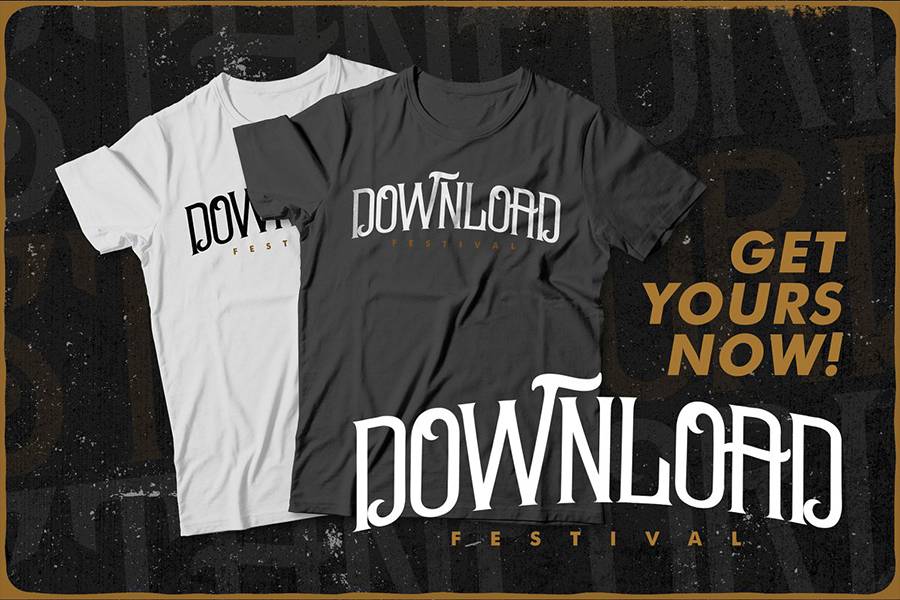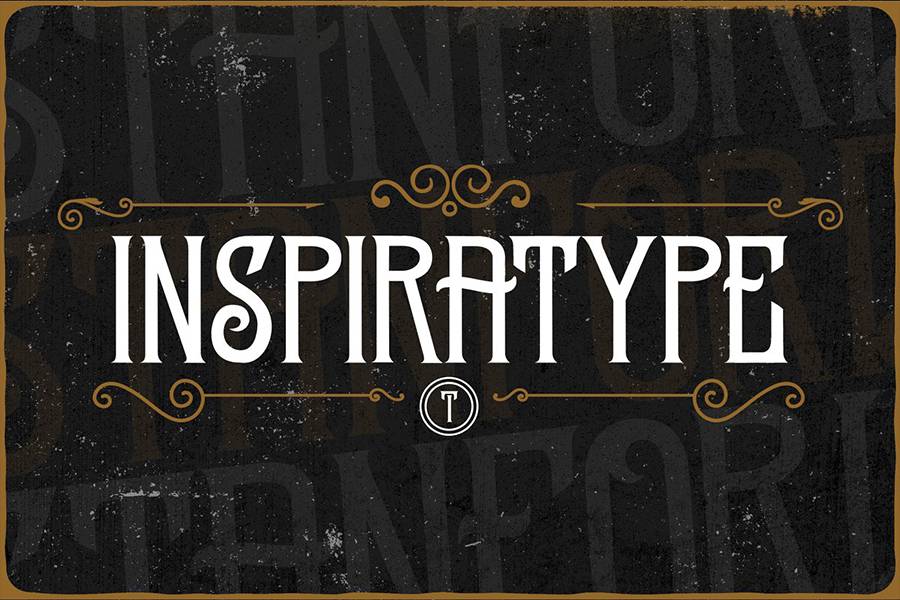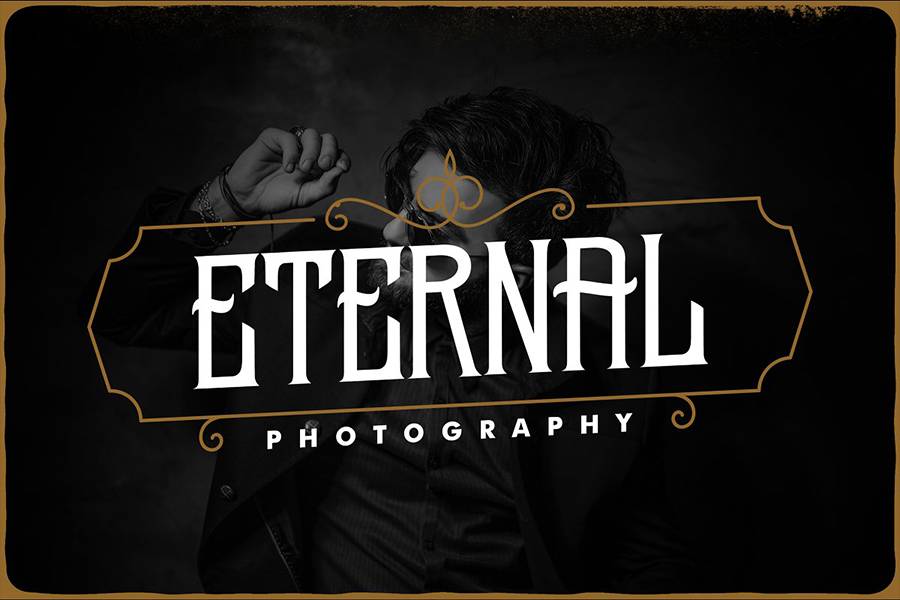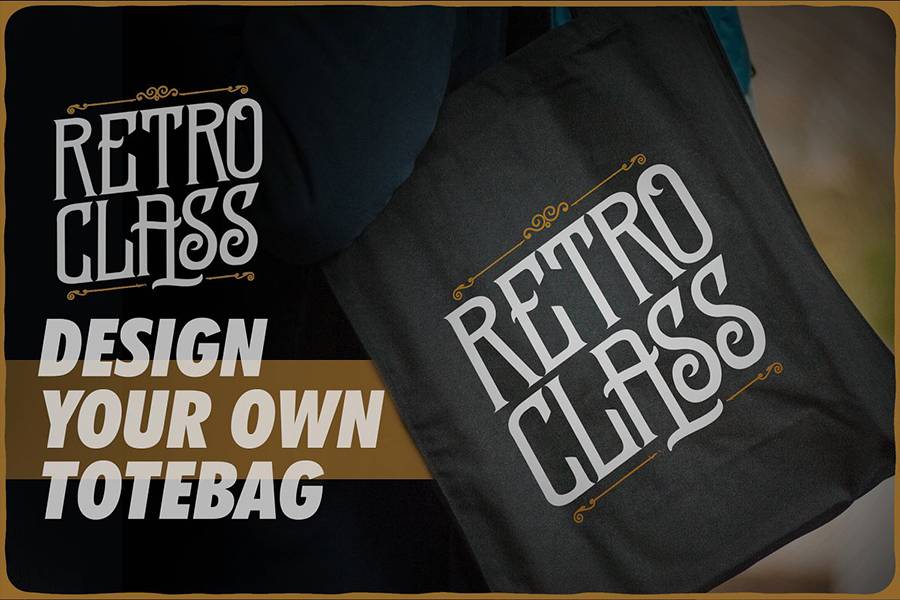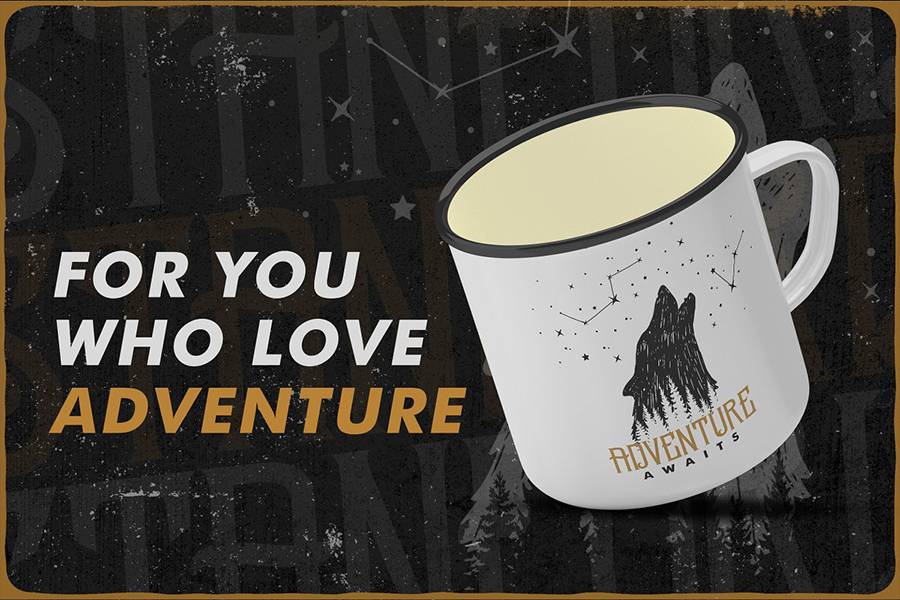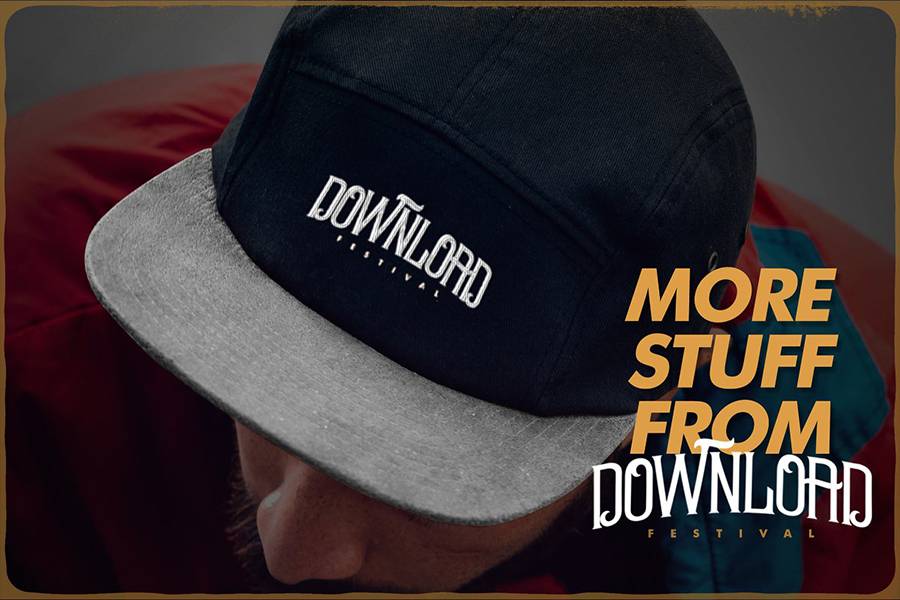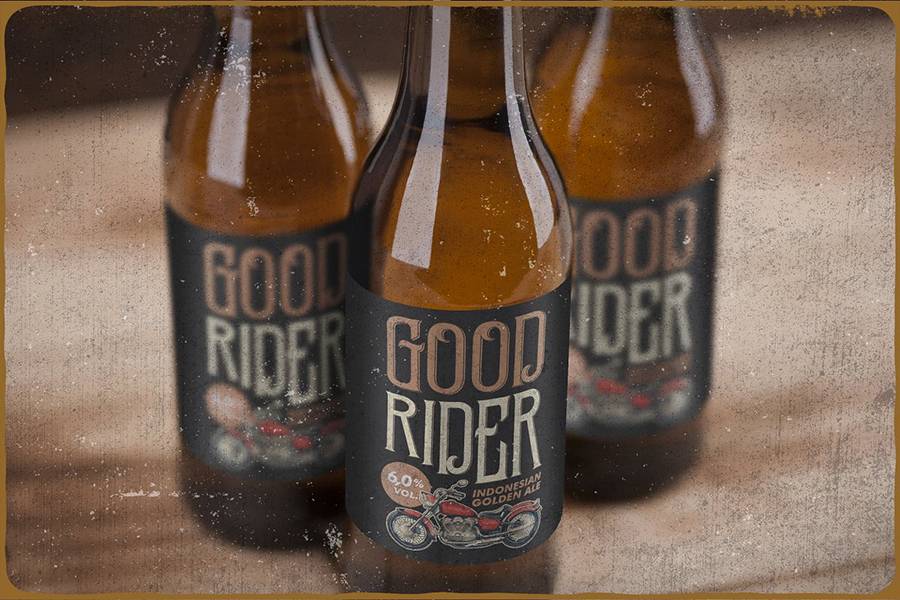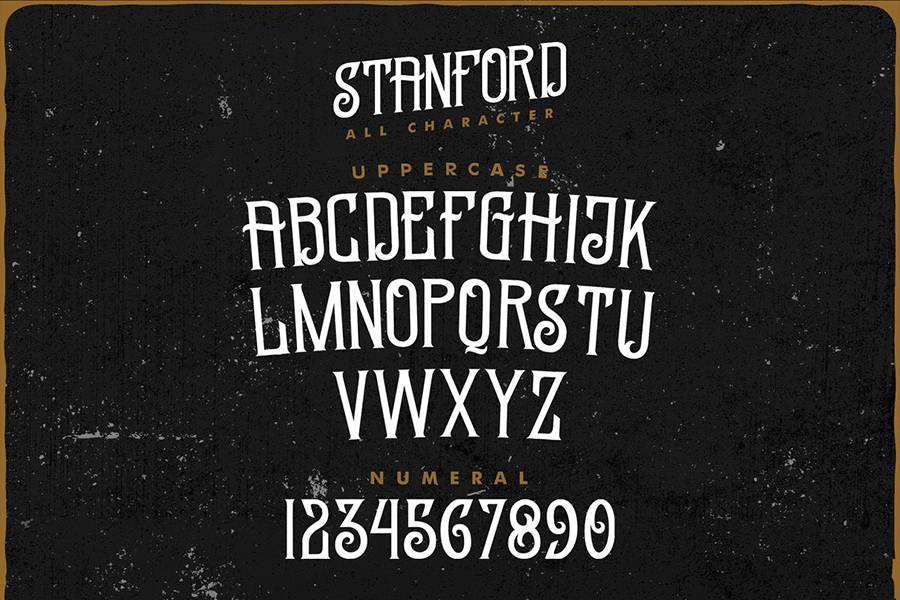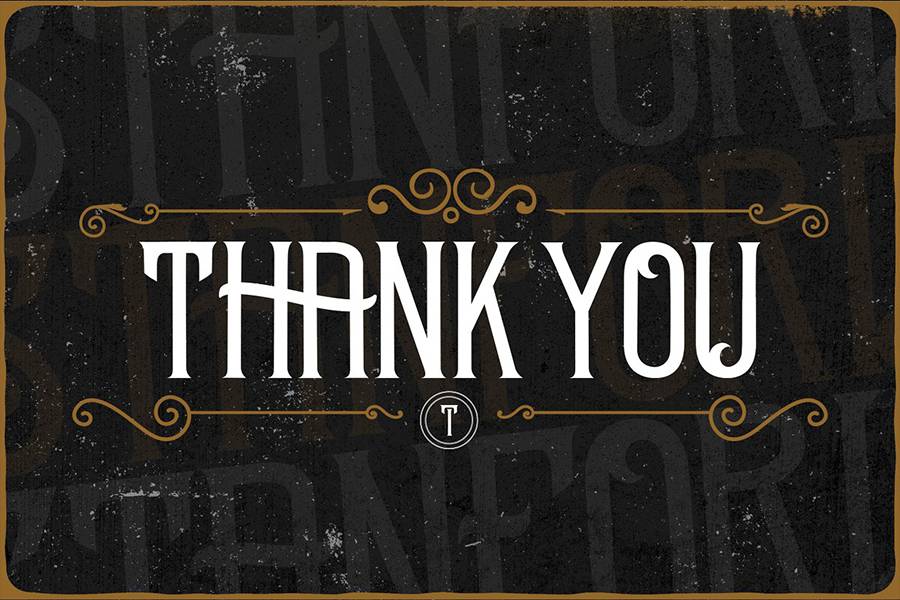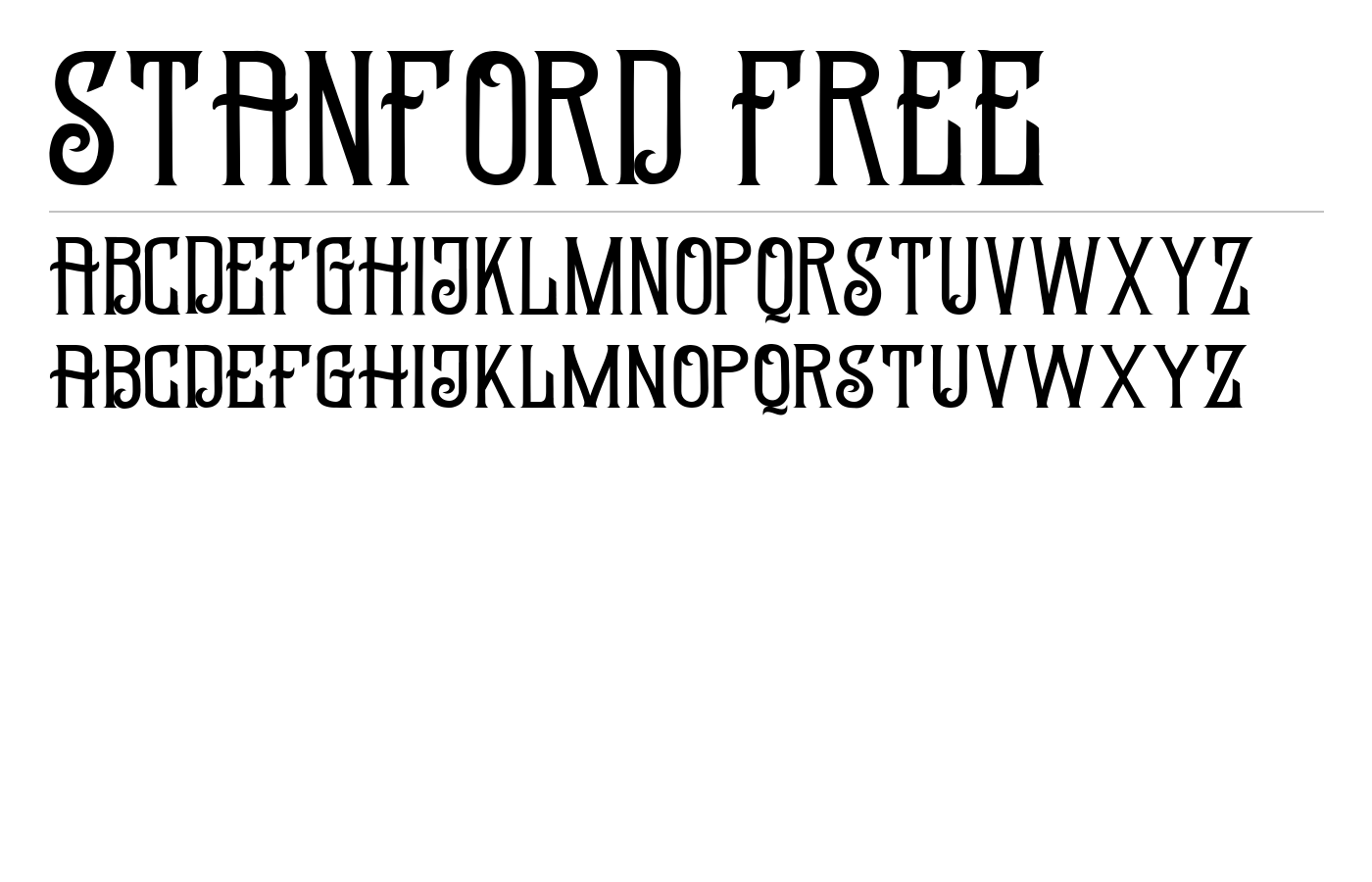
Standford Vintage is a distinctive serif font with a tall, condensed structure and unique decorative flourishes that give it an old-fashioned, vintage charm. Its sharp contrast and ornate letterforms evoke a sense of classic elegance and personality, making it ideal for branding, posters, or headlines where a nostalgic yet stylish vibe is desired. This font works well in designs that aim to capture a timeless and artistic mood while maintaining readability.
Standford Vintage Font Demo
About Standford Vintage Font Demo
| Font family | Standford Vintage Font Demo |
| Designer | inspiratype |